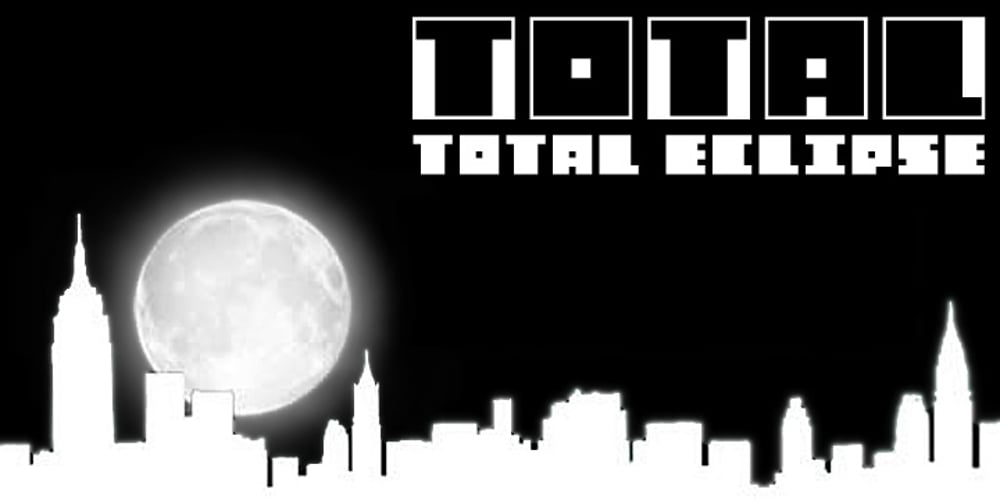
Total Font Family was designed by Keith Bates and published by K-Type. Total contains 2 styles and family package options. A display font based on the four characters of Jaroslav Supek’s title lettering for his 1980s mailart magazine, Total. The boxed regular Total is accompanied by a free Eclipse version.